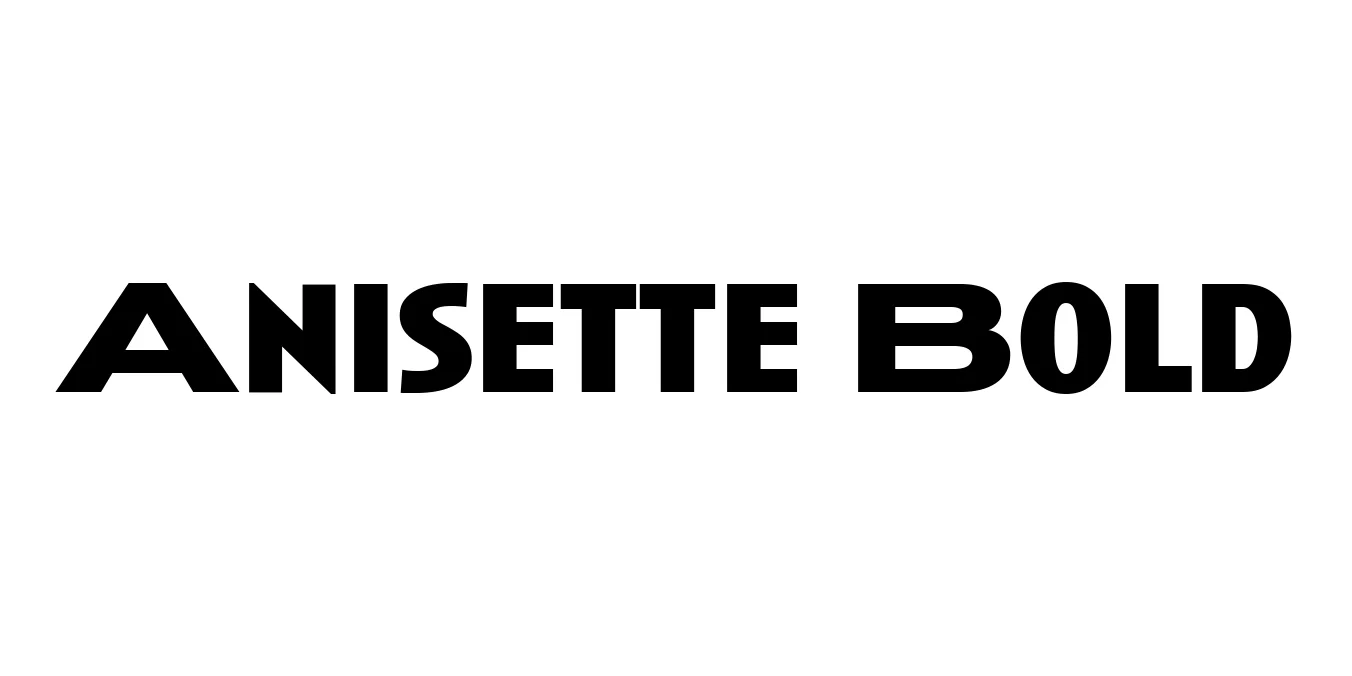
Anisette Bold
Designed by Jean-François Porchez
| Category | Art Deco Sans Serif |
Anisette Bold was meticulously designed by the renowned French typographer Jean-François Porchez and released through Typofonderie in 1996. The typeface is deeply rooted in the Art Deco tradition of the 1930s, specifically inspired by the geometric lettering found on vintage French posters. This weight emphasizes the font's unique structure, which features a striking contrast between wide and narrow character widths, creating a rhythmic and sophisticated visual flow.
As a cornerstone of modern French type design, Anisette Bold offers a blend of historical charm and contemporary precision. It is widely recognized for its Parisian elegance and its ability to convey a sense of luxury and high-end fashion. The font has been utilized extensively in editorial design and corporate branding where a strong, decorative, yet legible sans-serif presence is required to command the viewer's attention.
Anisette Bold Best Uses
Perfect for luxury brand logos and high-end identity systems.
Ideal for striking headlines in fashion or lifestyle magazines.
Excellent for large-scale display typography with a vintage feel.